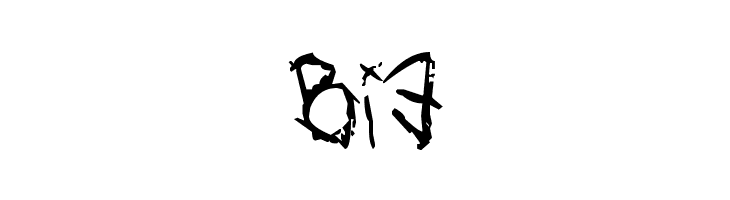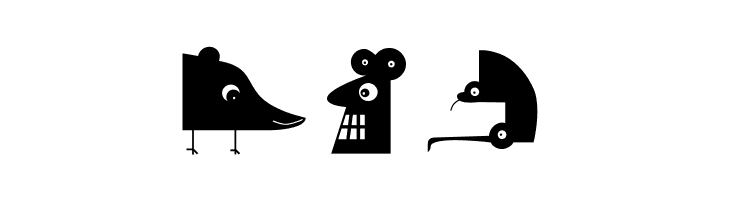
• VectorAnimals
A decorative font with whimsical animal illustrations for each character.
• Venice Classic
• Verdy
A bold, distressed font with a grunge-like, hand-drawn appearance.
• verdy évolution
A bold, playful font with a three-dimensional, hand-drawn style and a grungy texture.
• Verily Serif Mono
• Verona Gothic
A traditional Gothic script with intricate, ornate letterforms and dramatic strokes.
• Verona Gothic Flourishe
A bold, Gothic-style font with intricate flourishes and high contrast.
• VibratteLetters!
• Victor Moscoso
A bold, wavy font with a playful, psychedelic style.
• Victoriana
A vintage, ornate font with decorative serifs and intricate details.